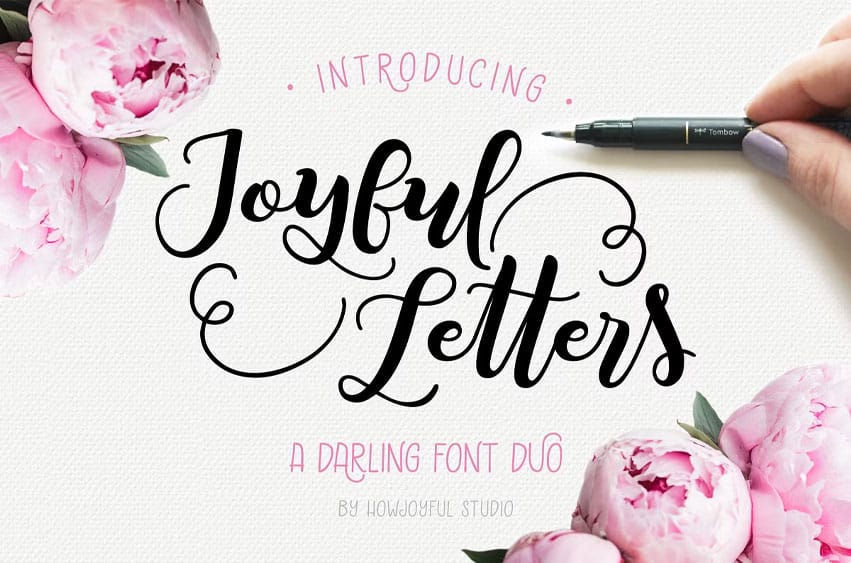
Joyful Letters Font was hand-lettered using a Tombow fudenosuke pen and lots of love, it features my signature script lettering style and a playful all caps sans serif. It features super clean outlines for detailed projects. I’ve added up to 6 different alternates for some letters and a nice selection of lovely ligatures to give a more natural look, so it can look less like a font and more like hand-lettering.
- The Scrip has 550+ glyphs total and the all CAPS has over 380 glyphs
- Coded OpenType features: stylistic alternates, initial and end characters, swashes, and ligatures